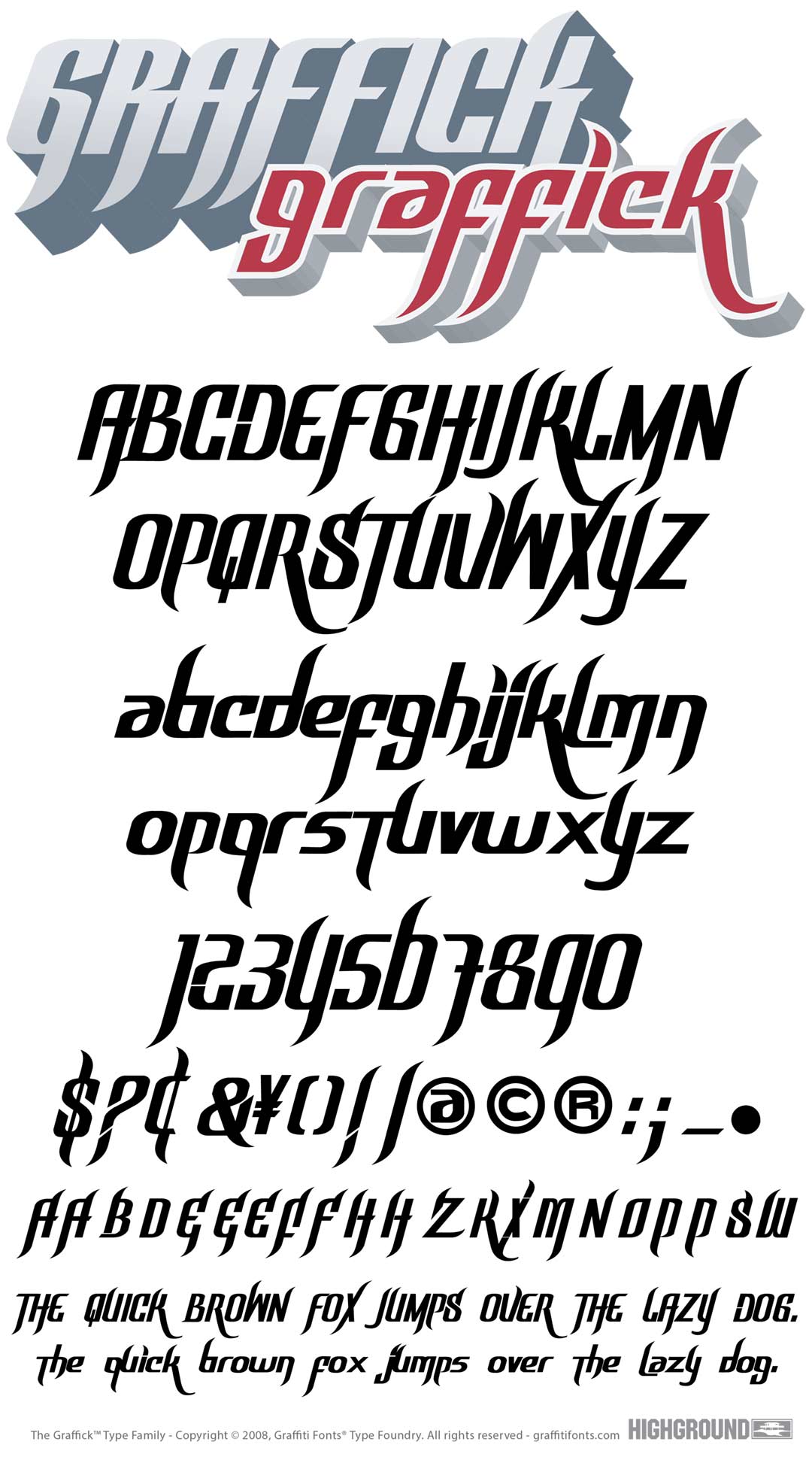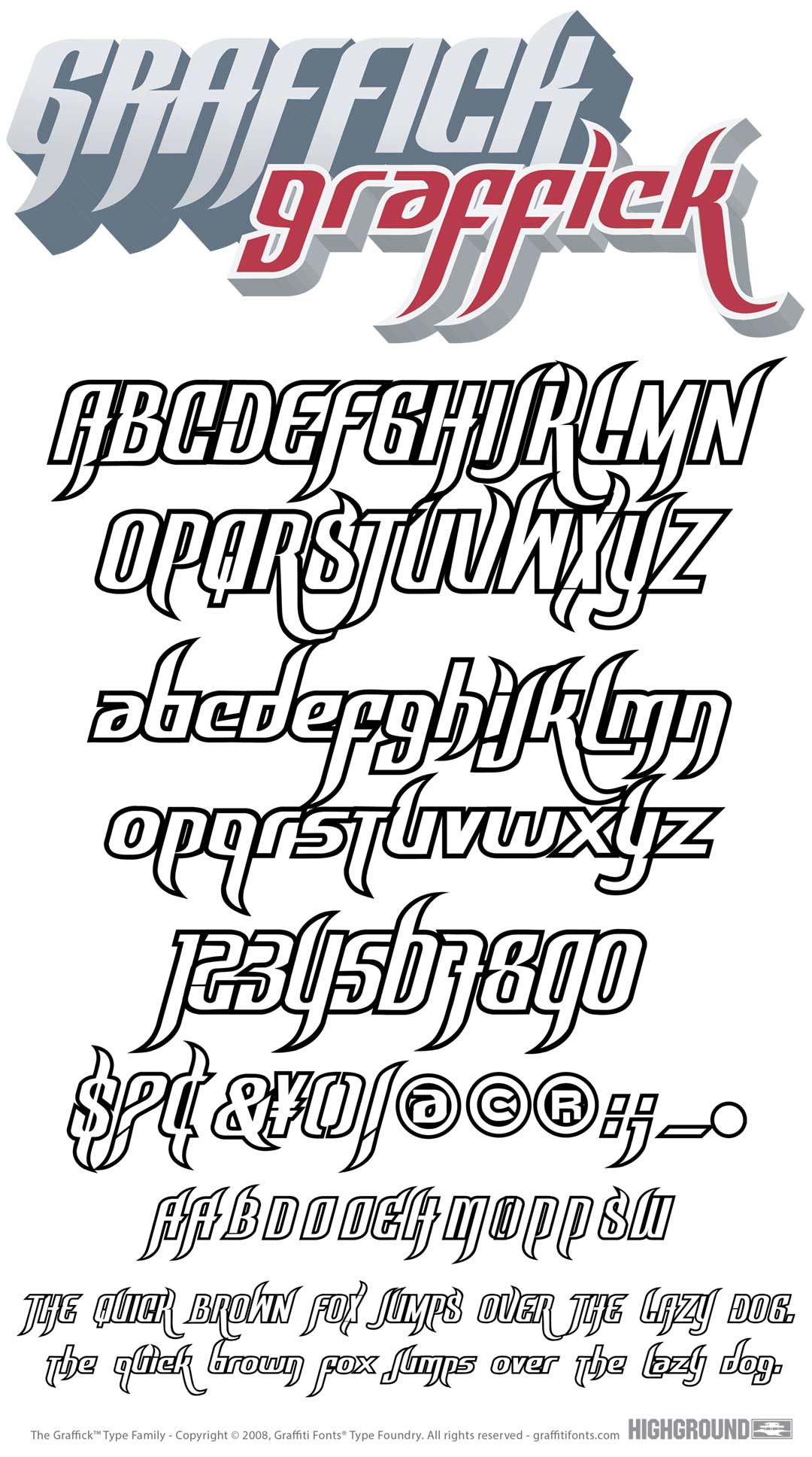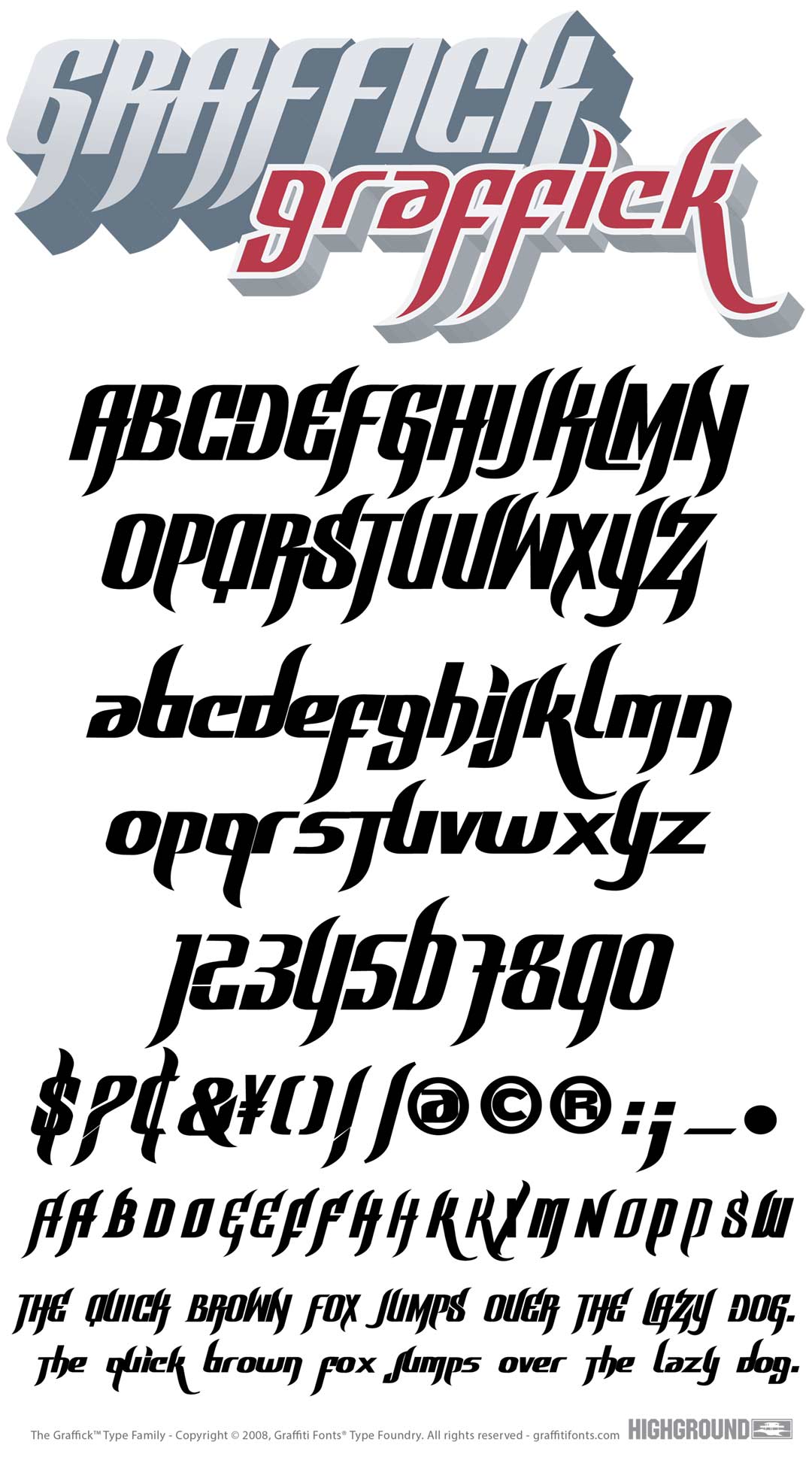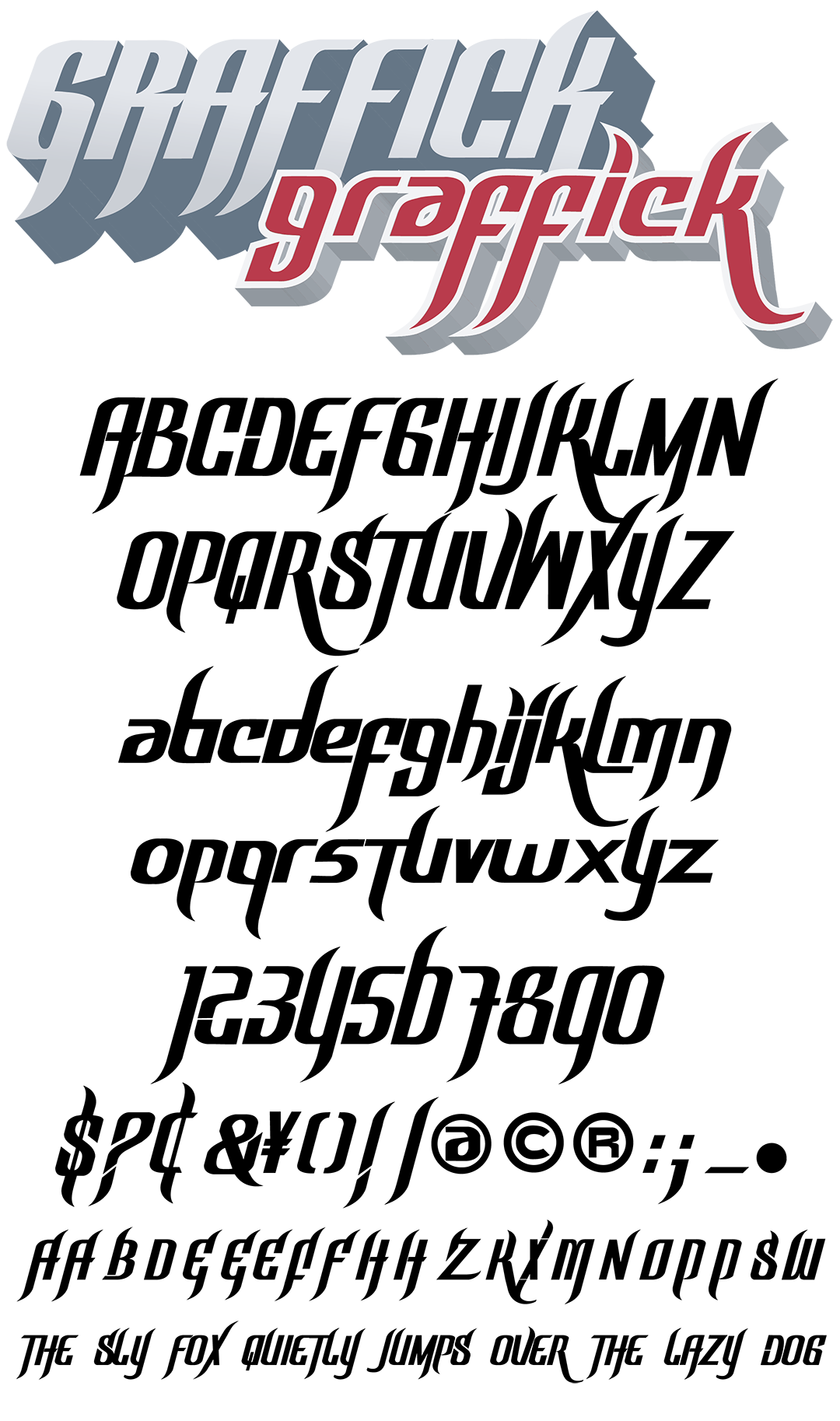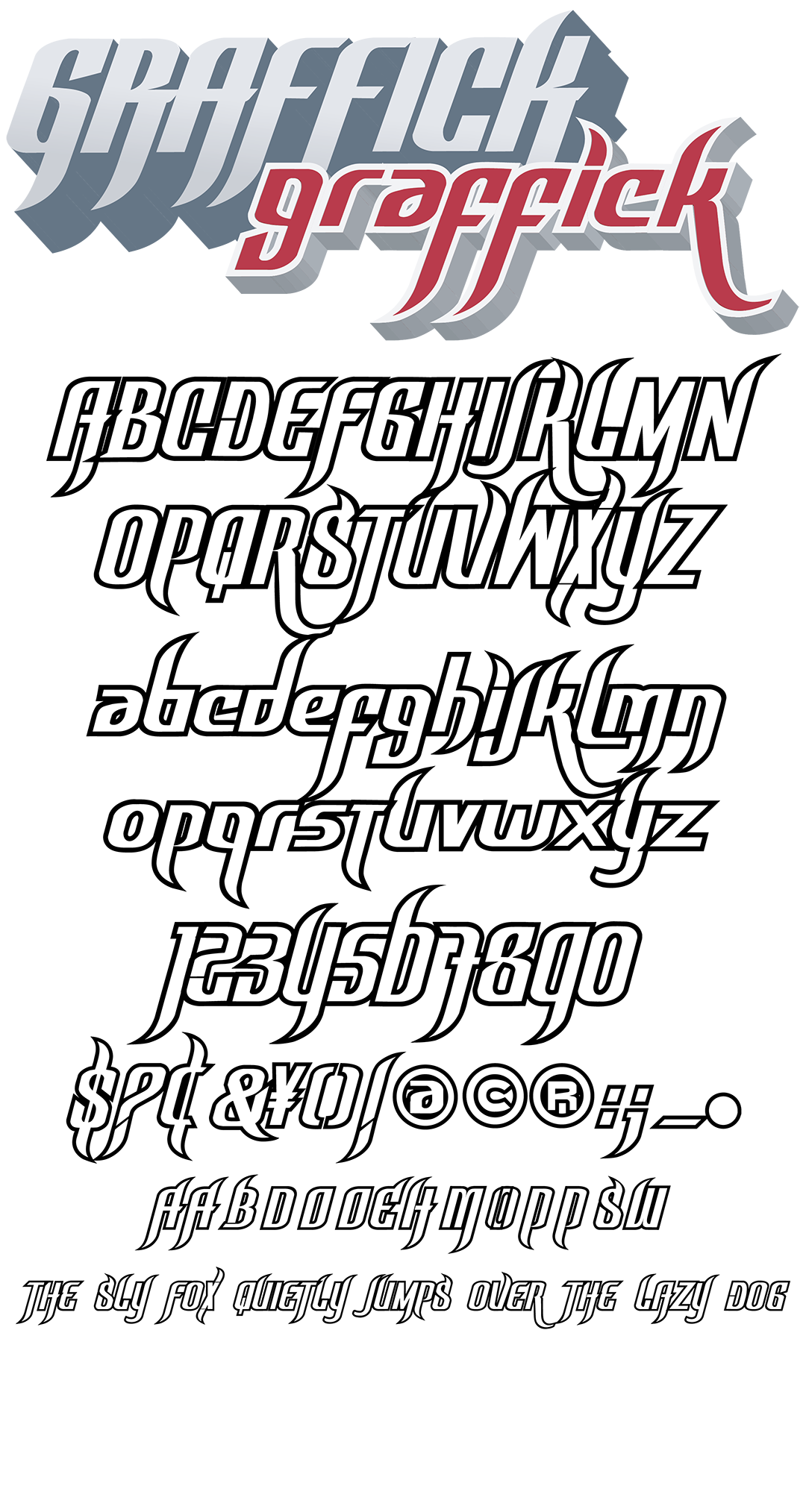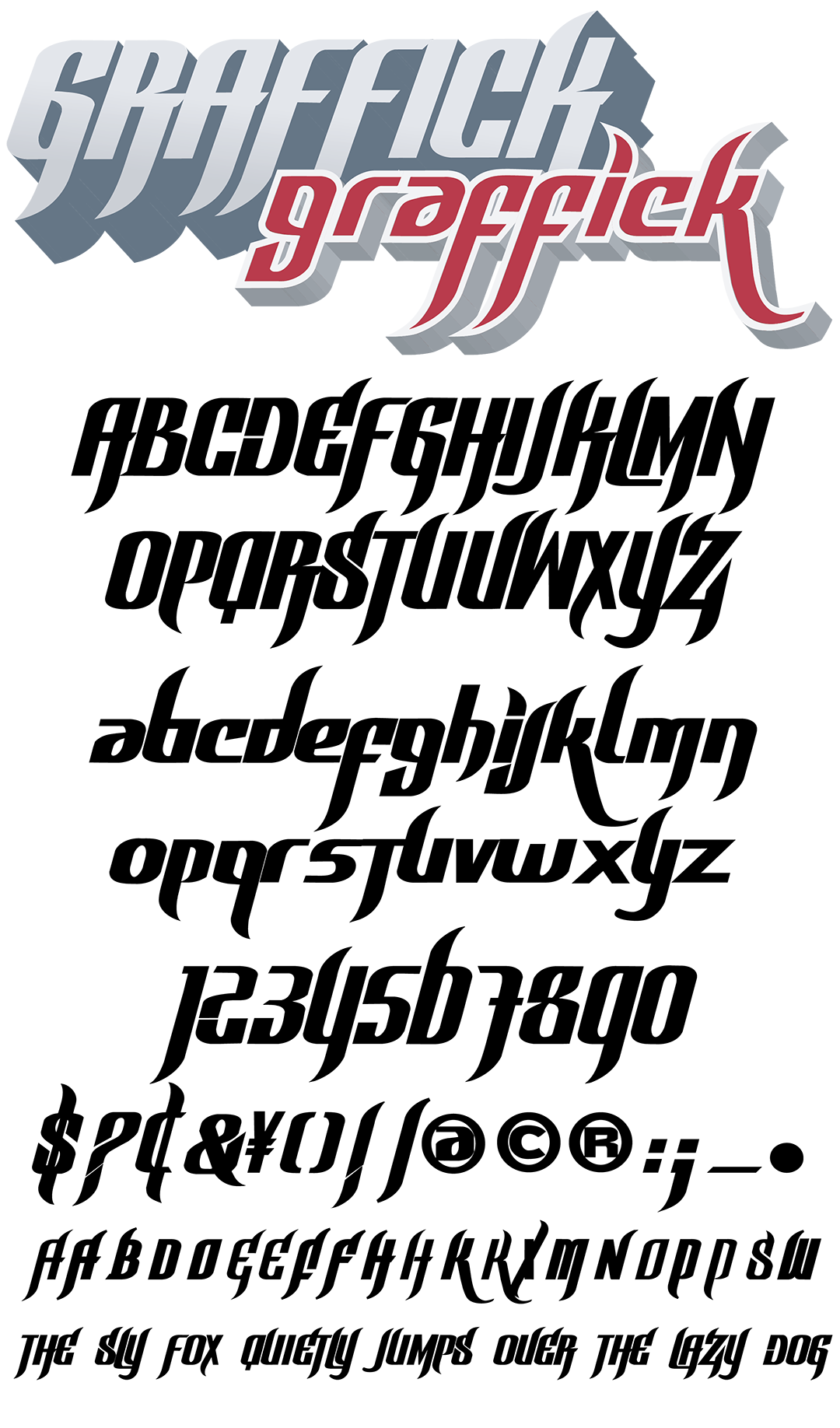
Graffick Font
Graffick Graffiti Alphabet
Graffick Graffiti Font Family
This family includes 5 styles each with 113 - 141 characters. The style was developed from hand written graffiti letters done with a calligraphy pen. Each character was re-drawn digitally to create a mechanically consistent result more like a traditional typeface than a graffiti style. Regular, Wide & Outline styles are included & each style features a robust character set.